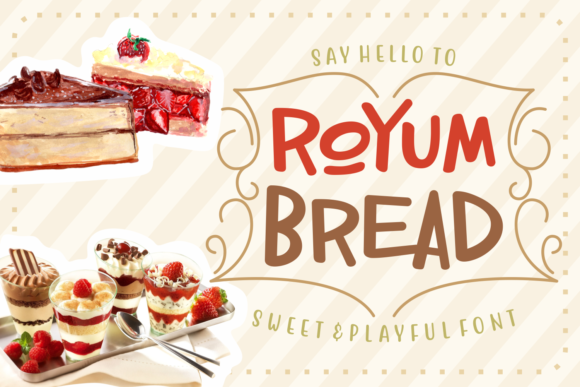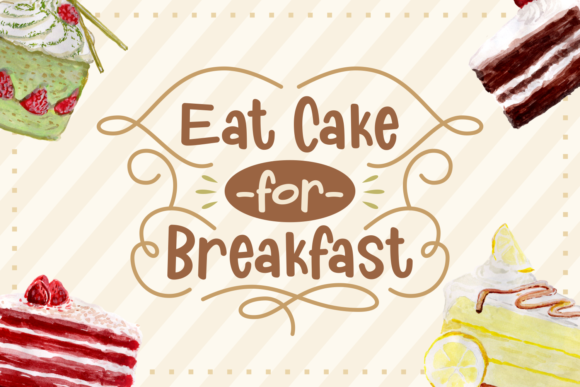
Royum Bread Font
About Royum Bread Font
The Royum Bread is a sweet script font. It has a great readability and clean letters, which makes it perfect for large designs.
Use it to add a playful feel to your designs!